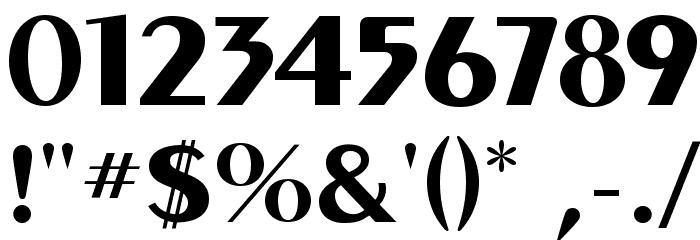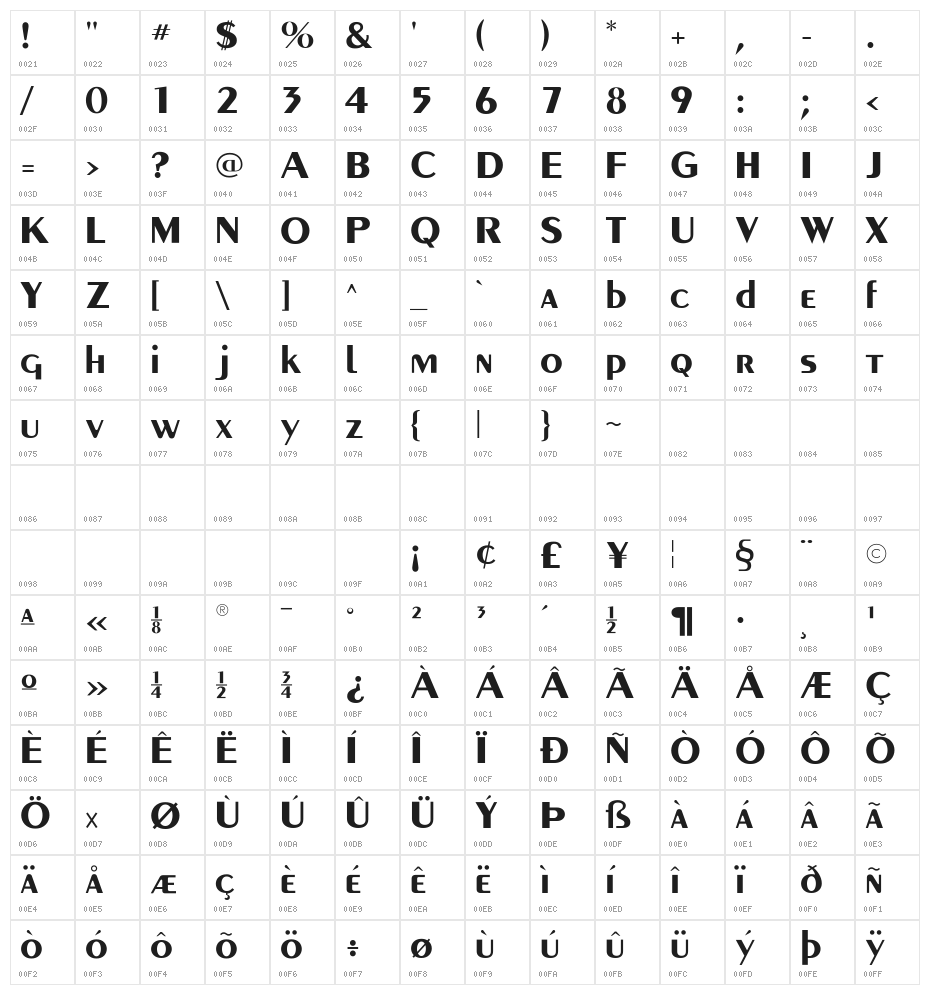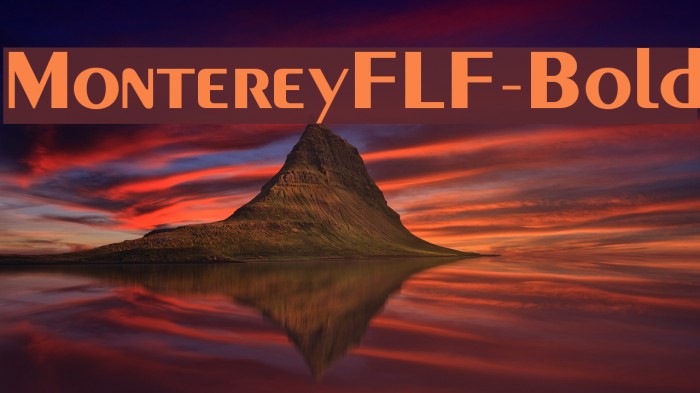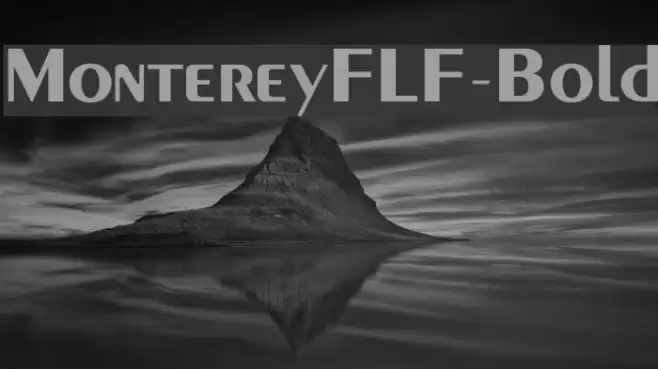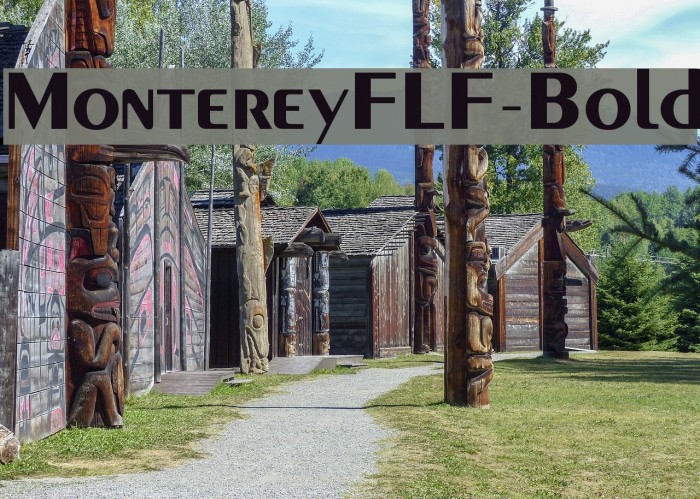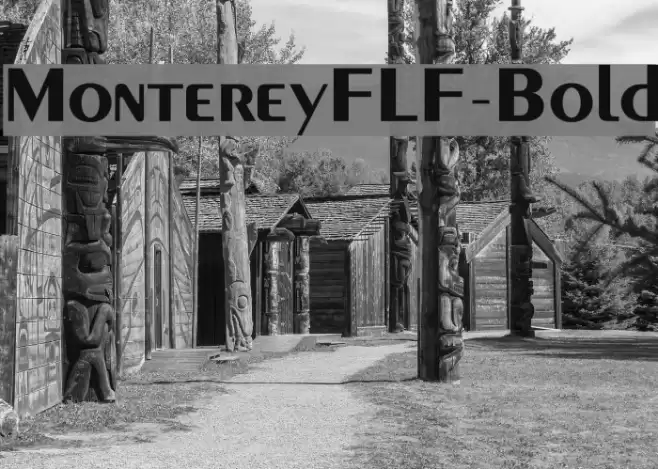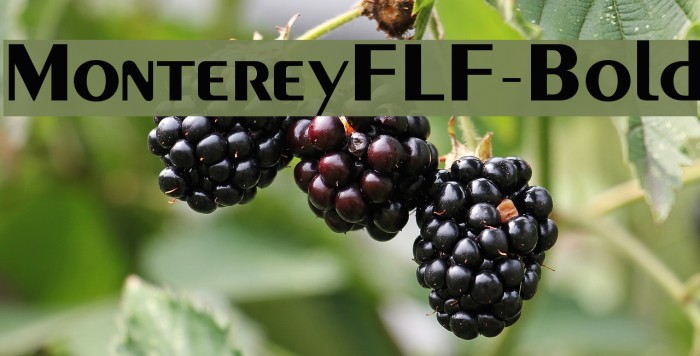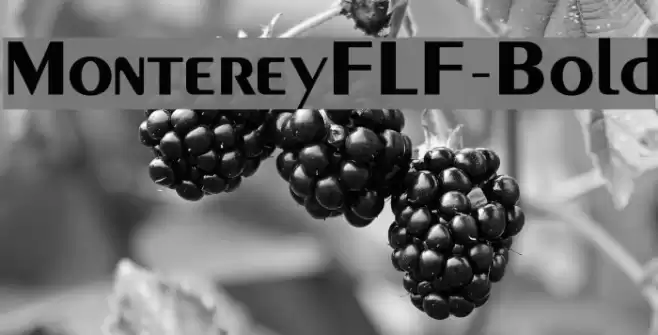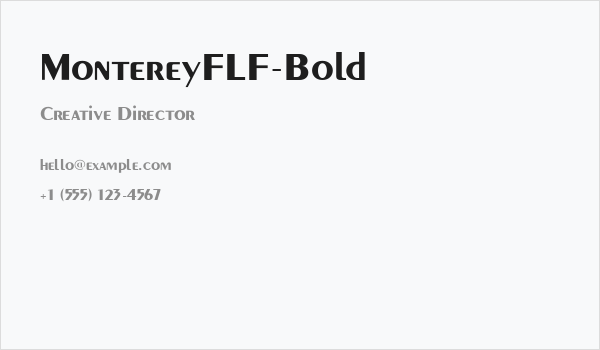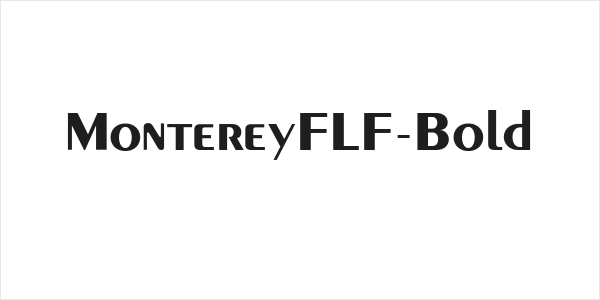
MontereyFLF-Bold Font
MontereyFLF-Bold Description
This font features a bold and dynamic style with strong geometric shapes and clean lines. The uppercase letters are robust and commanding, while the lowercase letters maintain a consistent weight, offering a harmonious balance. The numerals are distinct and easily readable, with a slight slant that adds a touch of modernity. Special characters are well-integrated, maintaining the overall aesthetic. The font's boldness and clarity make it suitable for impactful designs, ensuring visibility and readability across various media.
Proposed ProjectsIdeal for branding, headlines, posters, and advertising materials that require a strong visual impact.